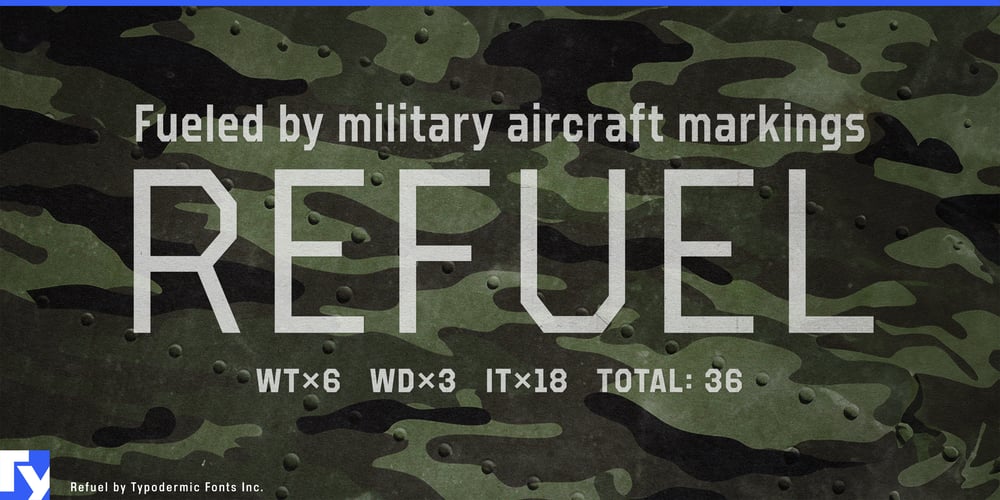
Refuel Font Family was designed by Ray Larabie and published by Typodermic. Refuel contains 36 styles and family package options. Prepare for takeoff with Refuel, the typeface that brings military-grade precision to your designs. This is a typographic wingman, ready to elevate your message to cruising altitude and beyond.Inspired by the no-nonsense world of military aviation markings, Refuel’s octagonal letterforms stand at attention, ready to deploy your words with the authority of a five-star general. Each character is a marvel of typographic engineering, as aerodynamic as a stealth fighter and as robust as a battle-tested bomber. Refuel’s unique features are more than just eye candy—they’re mission-critical. The automatic serif production when a capital “I” meets a lowercase “L” isn’t just clever; it’s a tactical advantage in the war against illegibility. It’s the typographic equivalent of radar, ensuring your message cuts through the noise with pinpoint accuracy.With six weights, six widths, and a full squadron of italics, Refuel gives you more firepower than an aircraft carrier. From the sleek, streamlined lighter weights that slip through defenses like a reconnaissance drone, to the heavy-hitting bold styles that drop your message like a payload, Refuel has you covered for any typographic sortie. This typeface doesn’t just cross borders—it flies over them. Supporting a vast array of Latin-based European, Vietnamese, Greek, and Cyrillic-based writing systems, Refuel ensures your message has clearance to land in territories from Afrikaans to Zulu. It’s your linguistic passport, ready to communicate with the precision of an air traffic controller in multiple languages.Why settle for typography that merely gets the job done when you can deploy Refuel and watch your designs take flight? Get it now and transform your projects from ground-bound to stratospheric. Whether you’re crafting a logo that needs to break the sound barrier of brand recognition or designing a website that requires the navigational clarity of a heads-up display, Refuel is standing by, ready for action.